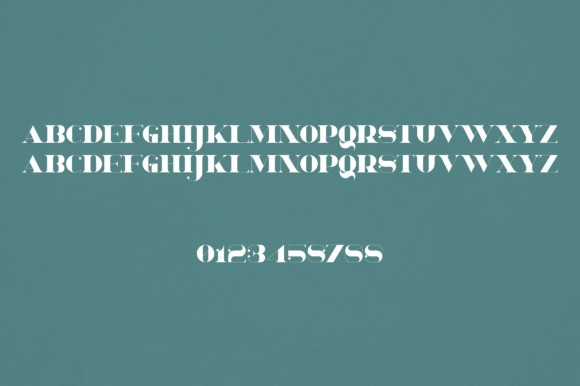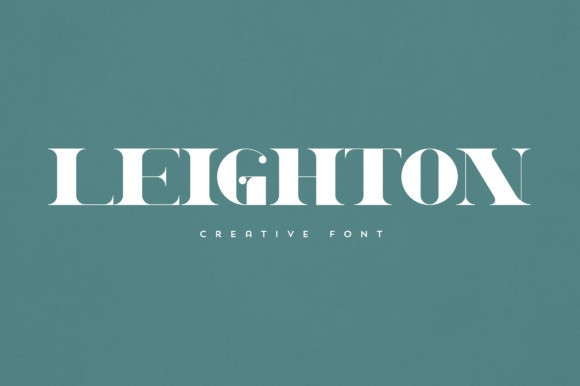
Leighton Font
Leighton Font is an elegant and versatile serif font that will make your typography truly unique! It will enchant every logo, branding, headline, or plain text!